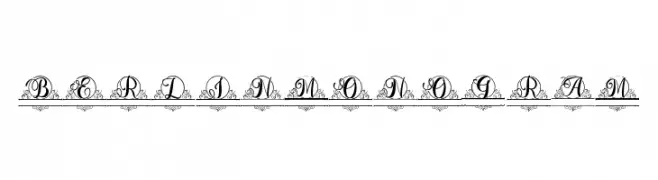
An ornate and elegant font with intricate flourishes, ideal for monograms.
An ornate, decorative font with floral embellishments and vintage calligraphy style.
An ornate and decorative script font with intricate swashes and flourishes.